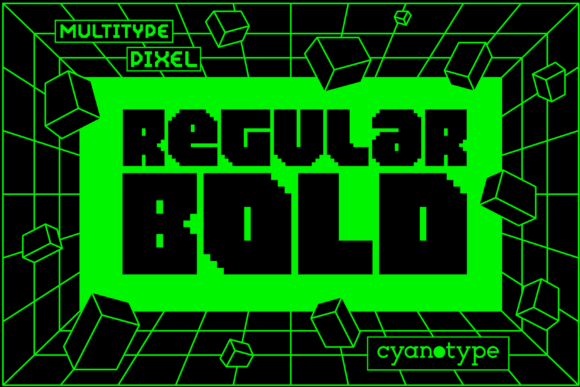
Welcome to the world of MultiType Pixel Bold, a font that erupts with creativity, innovation, and boundless potential. Picture yourself in a realm where typography transcends the ordinary, where every letter carries a story, and every word leaves an impact. MultiType Pixel Bold is the catalyst for your next design masterpiece, igniting your imagination and propelling you towards greatness.
Immerse yourself in the pixelated perfection of MultiType Pixel Bold. Its unique, chiseled structure oozes with character, adding a touch of intrigue and edginess to your projects. Crafted with meticulous attention to detail, each glyph boasts sharp angles, clean lines, and purposeful imperfections that create a captivating visual experience.
Embrace the limitless possibilities of MultiType Pixel Bold. Unleash your creativity in brand logos, posters, headlines, social media graphics, apparel designs, and the endless realms of digital media. Its versatility knows no bounds, effortlessly adapting to diverse design styles and themes.
With MultiType Pixel Bold, you'll never settle for ordinary again. Its captivating aesthetic will effortlessly elevate your designs, leaving a lasting impression on your audience. Every project you embark on will be infused with a sense of innovation, originality, and unmatched style.
Take the typographic journey of a lifetime. MultiType Pixel Bold awaits you, ready to transform your creative endeavors into masterpieces. Its pixelated charm will weave magic into your designs, leaving your audience spellbound.